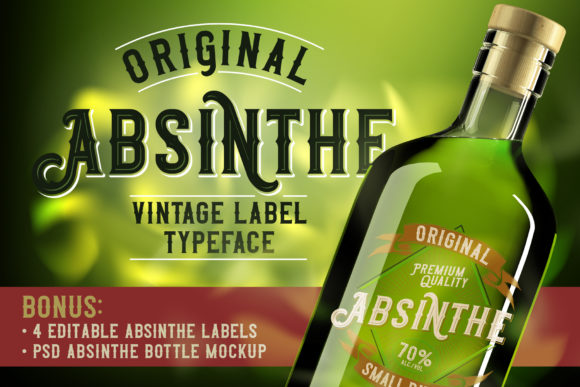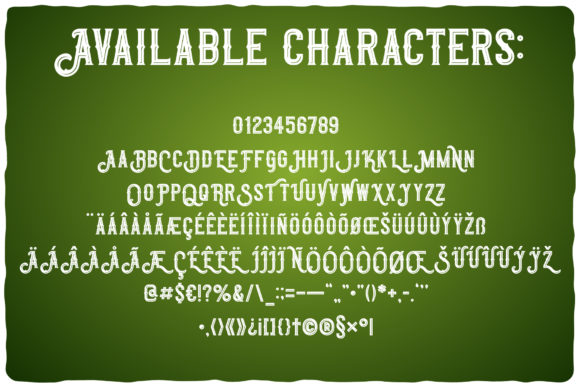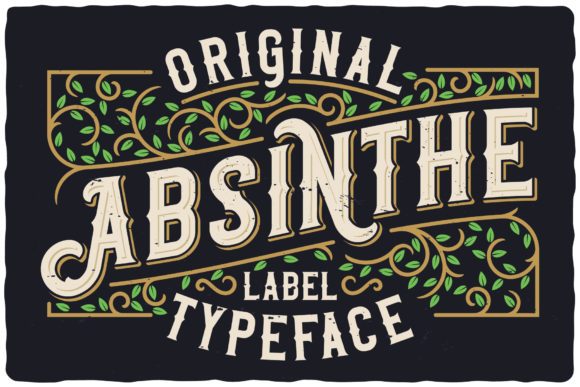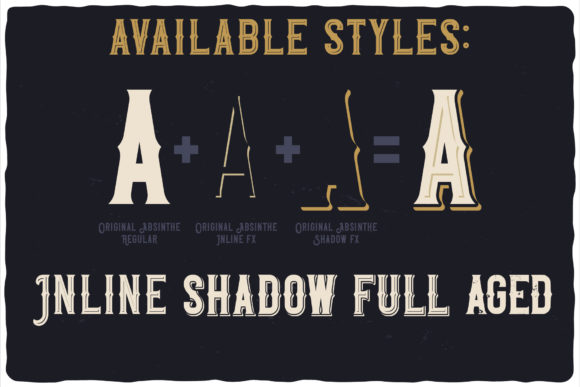
Original Font: Modern Vintage Display Font for Logo Design
About the Original Font
Elevate your designs with Original Font, a font that combines sophistication with readability. True to its namesake, Original is a beautifully made and unique vintage styled font. Clean, rounded, and well-weighted, Original can be used to add character and depth to your designs.
Original excels as a display font for headlines, logos, and short, impactful text in branding materials and posters. Its vintage styling lends itself well to projects with a retro or nostalgic feel. Avoid using Original for body copy or extended text blocks; its unique character isn’t optimized for readability in longer passages. Small sizes can also lose legibility.
The font’s personality is best described as friendly and approachable yet refined. Consider pairing Original with a clean sans-serif like Open Sans for body text or a geometric sans-serif like Futura for a modern contrast. For a more traditional feel, a classic serif like Garamond could work well, balancing the rounded forms of Original.
This combination provides visual interest and hierarchy without overwhelming the design. Brands seeking a vintage-inspired aesthetic with a touch of contemporary appeal will find Original particularly effective.
Original Font Usage Examples
Original Font Example